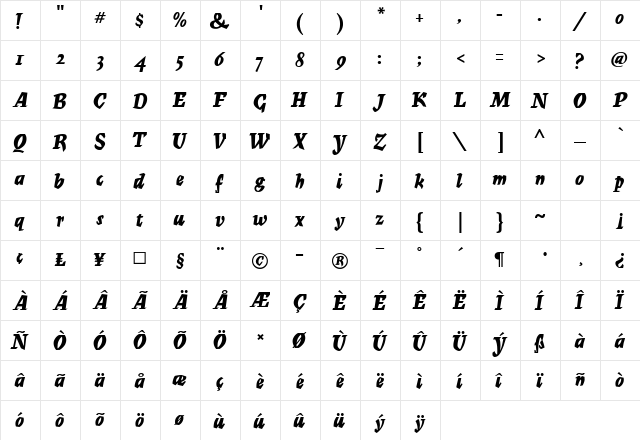
Mercurius MF Regular
Design Context for Mercurius MF Typeface
Mercurius MF is a composed and adaptable typeface that performs quietly and consistently across a wide range of design contexts.